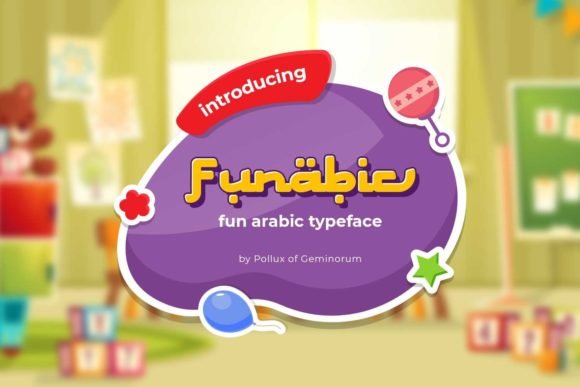
Unlock the Artistic Potential of Your Designs with Funabic Font
Have you ever found yourself staring at a blank canvas, struggling to find the perfect font to bring your creative vision to life? It’s a feeling we’ve all been there, designers and artists alike. But what if I told you that there’s a secret to unlocking a world of artistic possibilities, right at your fingertips? Meet the Funabic Font, a unique and captivating Arabic styled display font that’s sure to take your designs to the next level.
With its PUA encoded features, accessing all the glyphs and swashes has never been easier. This means you can add the Funabic Font confidently to your favorite creations, knowing that you have complete control over the outcome. Whether you’re a seasoned designer or just starting out, the Funabic Font is an invaluable tool that’s sure to bring a touch of magic to your work.
Funabic Font Key Features
- Font Family: Funabic Font is a sans-serif typeface designed for digital use. It comes in 6 font styles: Funabic Light, Funabic Regular, Funabic Medium, Funabic Bold, Funabic Extra Bold, and Funabic Black.
- Size: The font includes a wide range of glyphs, covering over 2000 characters, including Latin, Cyrillic, and Greek alphabets, as well as a variety of punctuation marks and symbols.
- Resolution: The font is optimized for high-resolution displays, making it suitable for use in digital applications such as web design, mobile apps, and video games.
- Unique Characteristics: Funabic Font features a unique blend of geometric and organic shapes, resulting in a distinctive and modern aesthetic. Its clean lines and open forms make it highly legible, even at small font sizes.
Designer Review: Funabic Font
Overall, I think Funabic Font has a lot of potential. The ✨ unique and playful style is sure to grab attention in digital designs. Here are a few things that really stand out to me:
- ✨ The font’s rounded edges give it a friendly, approachable feel that works well in contexts where you want to convey a sense of warmth or approachability.
- ✨ The font’s varying weights and styles provide a lot of flexibility for designers looking to add visual interest to their work.
- ✨ Funabic Font supports a wide range of languages, making it a great choice for international designs.
However, there are a few limitations that designers should be aware of:
- ⚠️ The font’s rounded style can sometimes make it difficult to read, particularly in smaller sizes or at a distance.
- ⚠️ Some of the font’s more decorative styles may be too busy or overwhelming for certain designs.
- ⚠️ The font’s support for certain special characters and punctuation marks is limited, which may cause issues in certain contexts.
Overall, I think Funabic Font is a great choice for designers who want to add a touch of personality to their work. While it may have some limitations, its unique style and flexibility make it a valuable addition to any design toolkit.